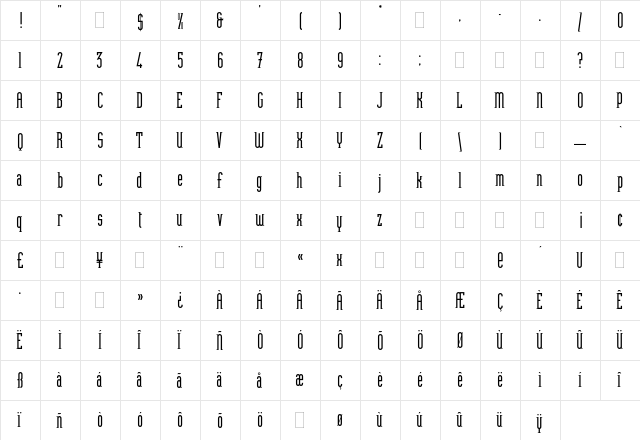
Heliotype Plain
Design Context for Heliotype Typeface
Heliotype takes a measured approach to typography — its balanced proportions and neutral character make it a reliable workhorse for both digital and print work.